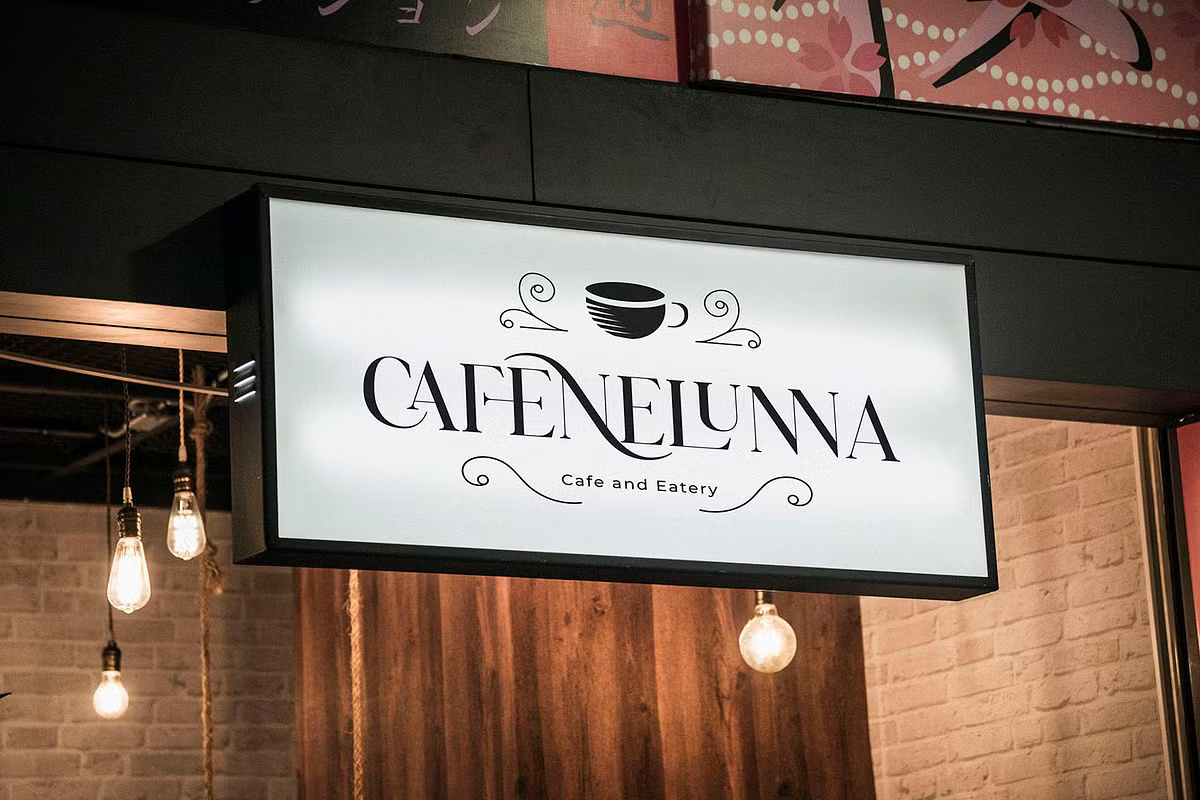
Cavilenny Font
Cavilenny is a modern display serif font, ideal for making a bold statement in headings, logos, branding, magazines, product packaging, and invitations. With its clean lines and smooth curves, Cavilenny adds a touch of elegance and sophistication to any project.
Cavilenny Serif Font